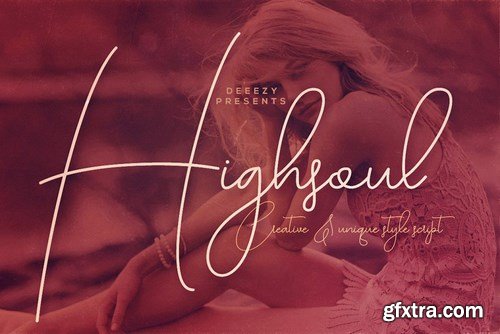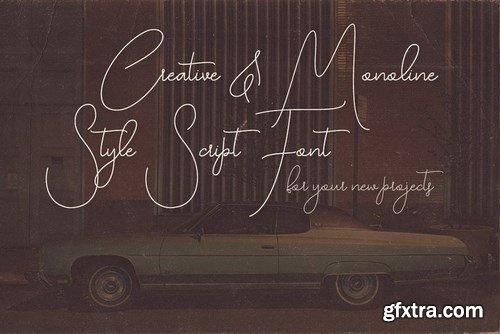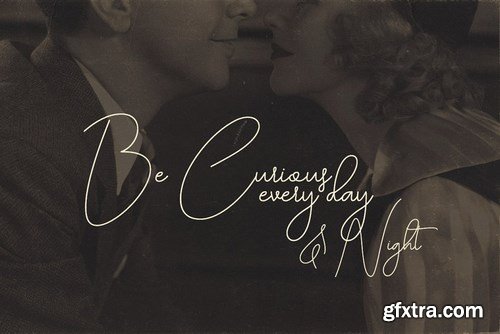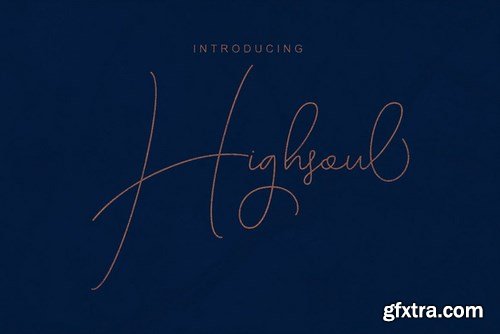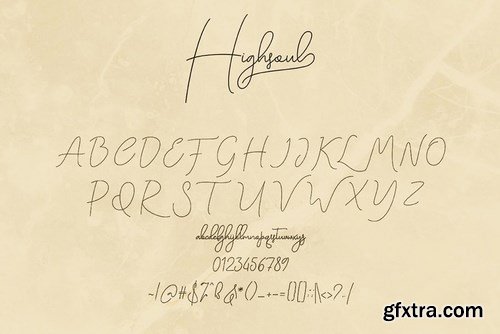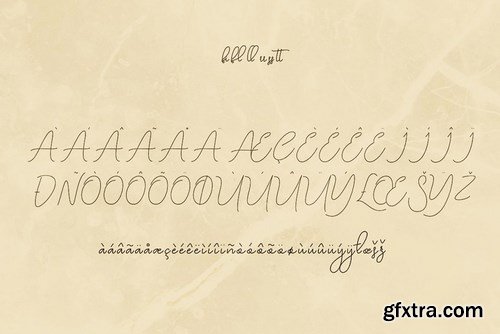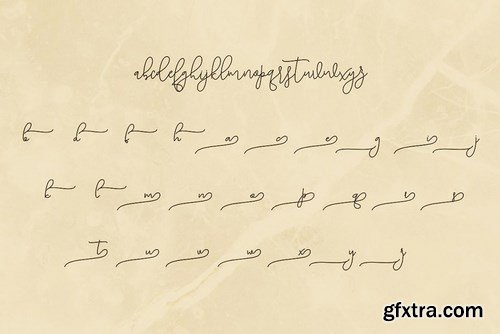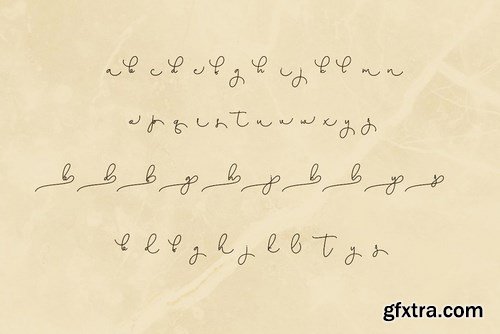
Simple and monoline or creative style script font for your new projects. With multi language support and lot of stylistic alternates & swashes. Enjoy ;)